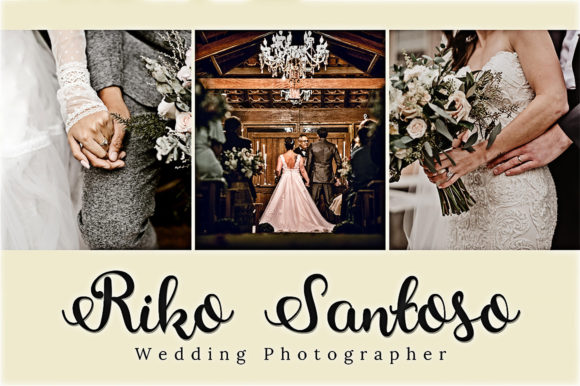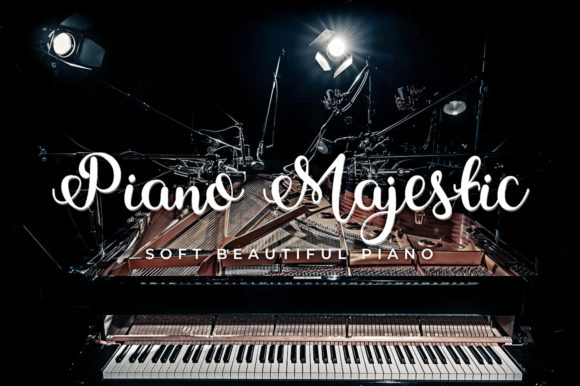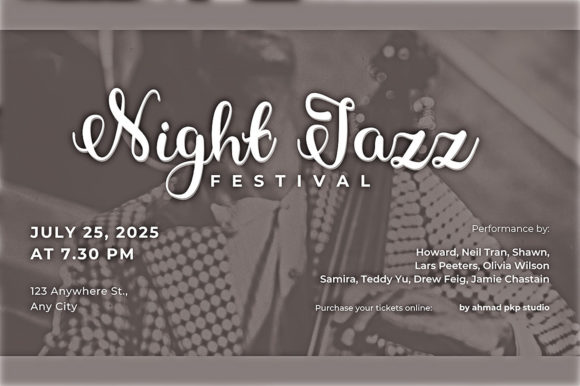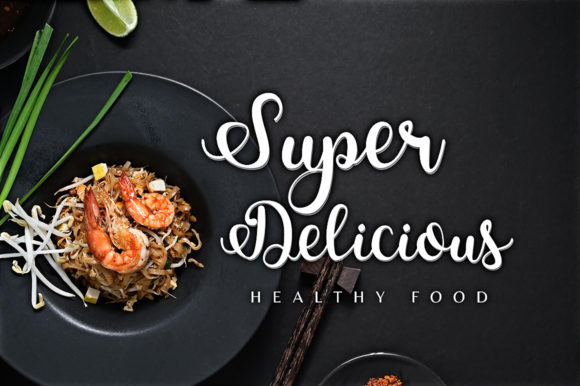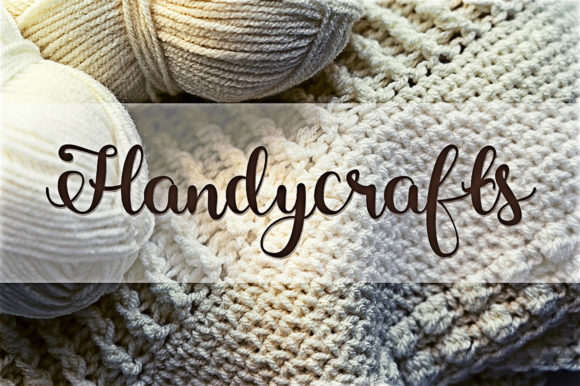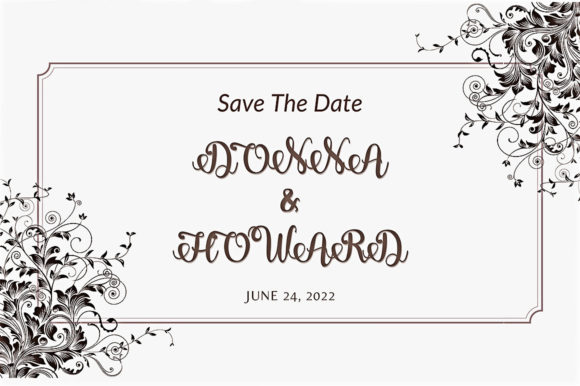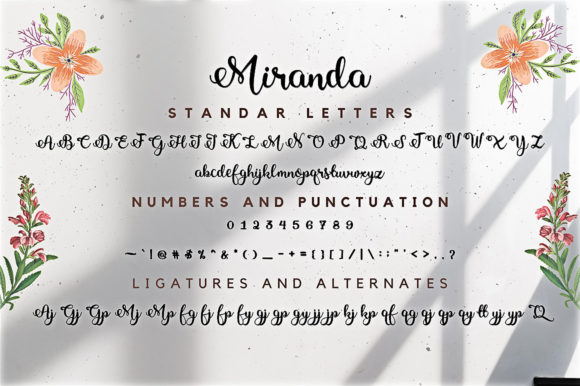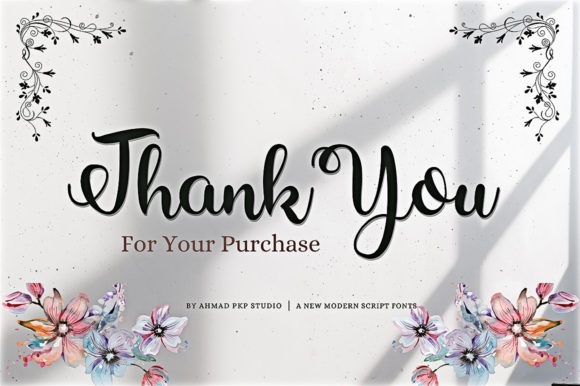
Miranda Font
Miranda Font: An Elegant Script for Sophisticated Designs
The Miranda font is an exquisite script typeface that adds elegance to various branding projects. Its delicate strokes and fashionable design make it ideal for creating memorable brand identities.
Versatility in Logo Design
In logos, Miranda shines with its intricate letterforms. It’s perfect for high-end fashion brands, luxury beauty products, and upscale boutiques, adding refinement that resonates with target audiences.
T-shirt printing gains sophistication with Miranda. Its graceful curves create stunning visuals on apparel, making designs stand out whether for quotes, brand names, or stylish graphics.
Enhancing Creative Products
Miranda brings life to creative products with its contemporary aesthetic. From packaging to labels, it enhances product looks, giving them a luxurious appeal for discerning consumers.
The font’s versatility extends to posters, flyers, and promotional materials. Its delicate appearance adds glamour to marketing efforts, capturing attention effectively.
Technical Features of Miranda Font
Miranda is PUA encoded, allowing easy access to beautiful glyphs and swashes. This feature provides flexibility to customize designs, matching creative visions perfectly.
Applications in Various Design Projects
Whether for wedding stationery or digital media, Miranda consistently delivers elegance. Its intricate details elevate projects across different mediums.
Conclusion: Miranda – A Font for Luxurious Expression
Miranda is a delicate script that brings sophistication to branding projects. From logos to product designs, it creates visually stunning impacts. As designers explore its possibilities, they’ll find Miranda an essential tool for crafting elegant and memorable work.